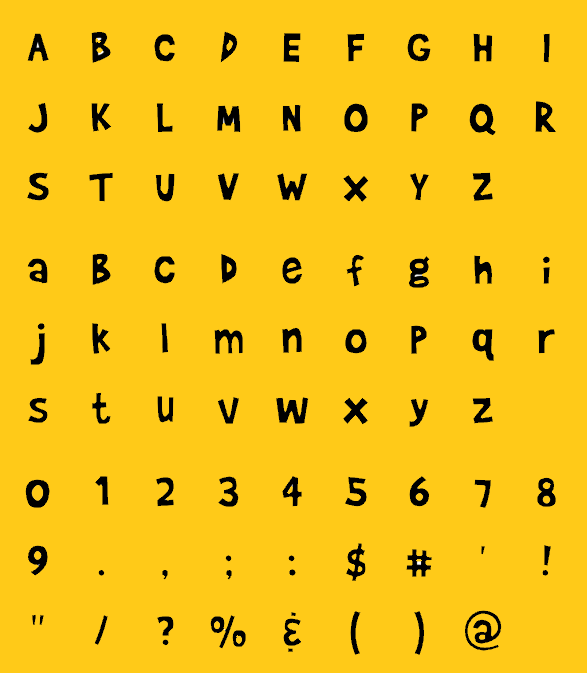
The Brady Bunch Font evokes nostalgia through its typeface inspired by The Brady Bunch show from the 1970s. The font captures the carefree aesthetic of the time with its bold, groovy lettering. This typeface is a go-to choice for many designers looking to blend in a vintage touch into their work.
From branding to social media graphics, this retro typeface has found its applications in a myriad of creative works
What is Brady Bunch Font?
The Brady Bunch Font was created by fans of the show, striving to imitate the show’s logo. The typeface has bold, round, and scruffy letters which make it seem hand-drawn. Even though the font was never registered or copyrighted with the alt show, retro font lovers and graphic designers accepted it with open arms.
History and Origins
The designers of the Brady Bunch logo font would likely say the idea stemmed from the 70s typography revival, as its inspiration stems from the logos use of deranged symphony and colorful arrangements. Over the years, the makers of modern creative design pieces were able to access the essence of the original letters with ease.
Key Features of Brady Bunch Font
The Brady Bunch Font’s design is bubbly and bold, making it suitable for 70’s-themed branding, posters, and merchandise.
- Retro Aesthetic – Aptly captures the vintage-inspired projects with a nostalgic and funky design that embodies the free-spirited essence of the 1970’s.
- Playful Lettering – Rounded, bold characters make it suitable for energetic designs which adds a sense of carefree appeal and personality to the overall design.
- Versatility – Can be applied creatively to logos, branding, posters, invitations, and even merchandising products.
- Readability – Despite its bold and decorative style, the font remains highly legible, making it ideal for headlines, social media graphics, and marketing materials.
Applications of Brady Bunch Font
The Brady Bunch Font is utilized by designers for different creative pieces including:
- Logos & Branding – Great font to use for vintage themed brands, restaurants, and retro branded merchandise.
- Posters & Invitations – Used for invites, event posters, and general marketing design.
- T-Shirt Designs & Merchandise – Applicable for clothing, stickers, and other novelty gifts.
- Social Media Graphics – Effective for Instagram and Facebook posts, YouTube thumbnails, and other creative designs.
- Editorial & Print Designs – Used in magazines, book covers, and retro-themed publications.
Conclusion:Brady Bunch Font
For designers looking for a distinct bold, retro touch, The Brady Bunch Font is an effective choice. Its playful and nostalgic theme that invokes childhood memories makes it wonderful for branding, marketing, and other creative works. This font can accomplish your imagination whether you are creating a vintage style logo, a playful social media post, or impressive merchandise.